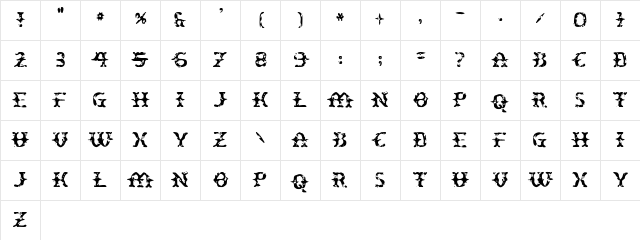
Peatloaf Regular Free Font
Peatloaf Regular
Design Context for Peatloaf
Peatloaf is a composed and adaptable typeface that performs quietly and consistently across a wide range of design contexts.
Pro Tip: Use Peatloaf in both headline and body roles to test its range before committing to a single application.